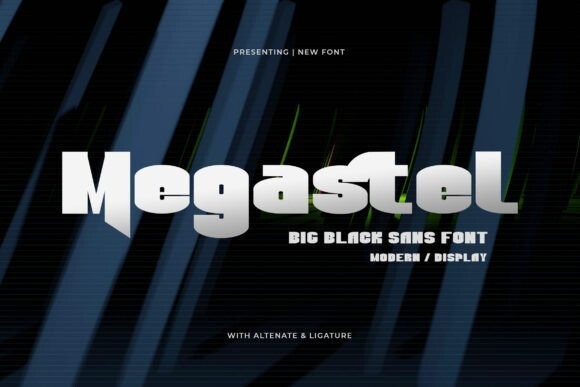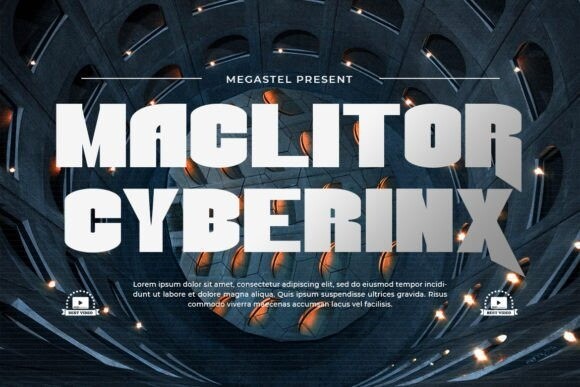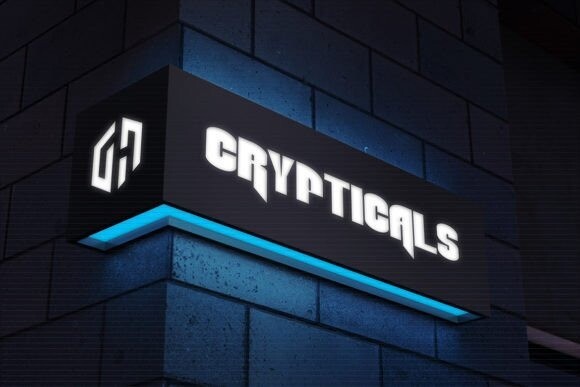
Megastel Font
Megastel is a bold sans font.
It has tall feels yet unique.
This font is great for logo designs, quotes, album covers, business cards, and much more!